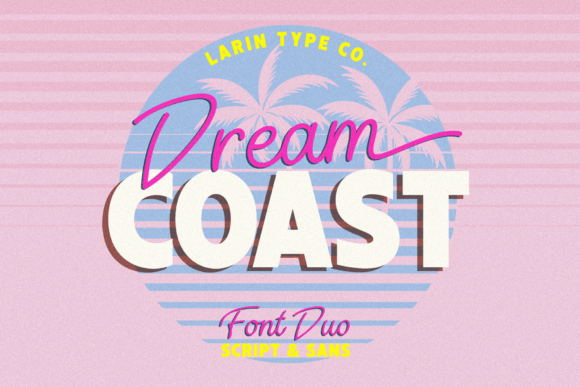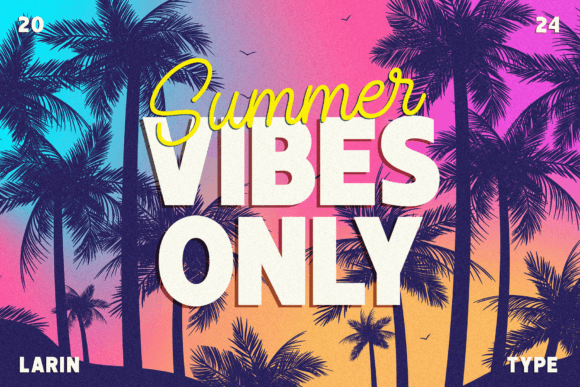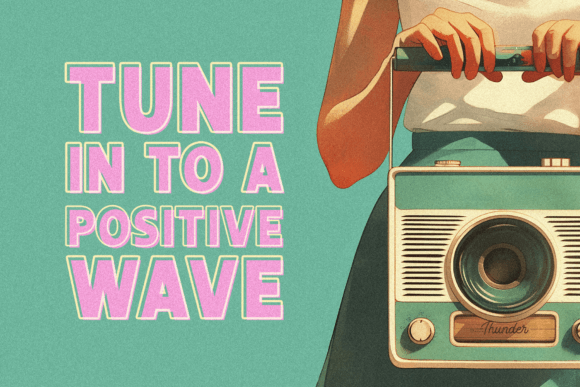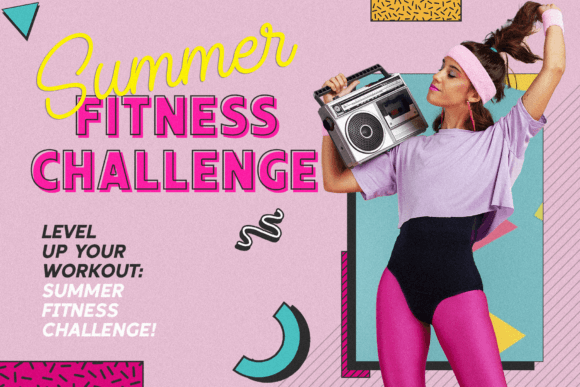
Dream Coast Font
About the Dream Coast Font
Let us introduce you to Dream Coast Font, where timeless design meets modern craftsmanship. Dream Coast is a vintage font duo inspired by the posters of the 80’s.
Sans serif font is a multi-purpose font that is perfect for any project, modern, and easy to read. Monoline script includes alternates and ends wash. With them you can create logos, use them in advertising, packaging, book covers and magazines, headings, descriptions, and much more.
Dream Coast’s strong, yet playful personality makes it ideal for headlines, logos, and short-form text in branding materials and posters. Its retro style lends itself well to projects evoking nostalgia or a vintage aesthetic. However, the monoline structure isn’t well-suited for large blocks of body text or UI elements where high readability is crucial.
For a balanced aesthetic, pair the sans-serif with a clean, geometric sans-serif like Montserrat for a modern feel, or a classic serif like Garamond for a sophisticated contrast. The script complements fonts with a similar vintage vibe, such as a slightly distressed serif, or a more contemporary script like Pacifico for a playful, yet cohesive look.
The overall mood is energetic and optimistic, making it a good fit for brands focusing on youth culture, travel, entertainment, or products with a retro-inspired design. Avoid using it for projects requiring a highly formal or minimalist presentation.
Dream Coast Font Usage Examples
Dream Coast Font Example